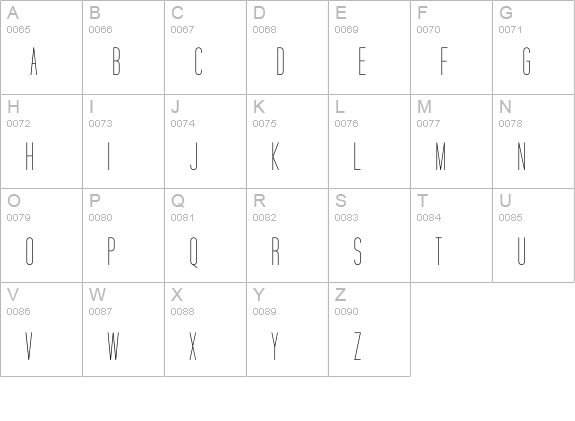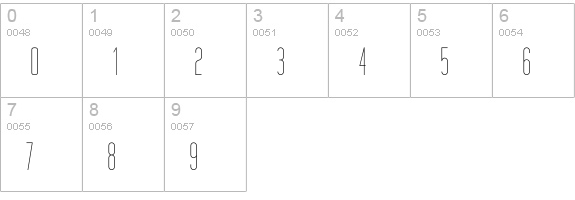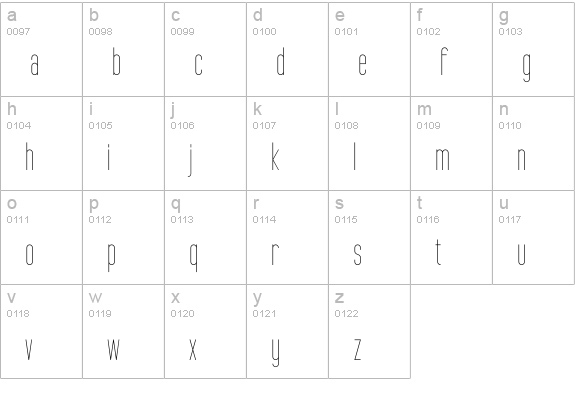
Introducing Tall Films font - a sleek and modern typeface designed to make a statement. With its tall and elegant letterforms, this font is perfect for adding a touch of sophistication to any design project. Whether you're working on posters, logos, or branding materials, Tall Films font is sure to captivate your audience. The best part? Tall Films font is completely free to download at FontsMarket.com. That's right, you can elevate your designs with this stunning font at no cost. Don't miss out on this opportunity to enhance your creative projects with the unique beauty of Tall Films font. Download it today and start creating eye-catching designs that stand out from the rest.